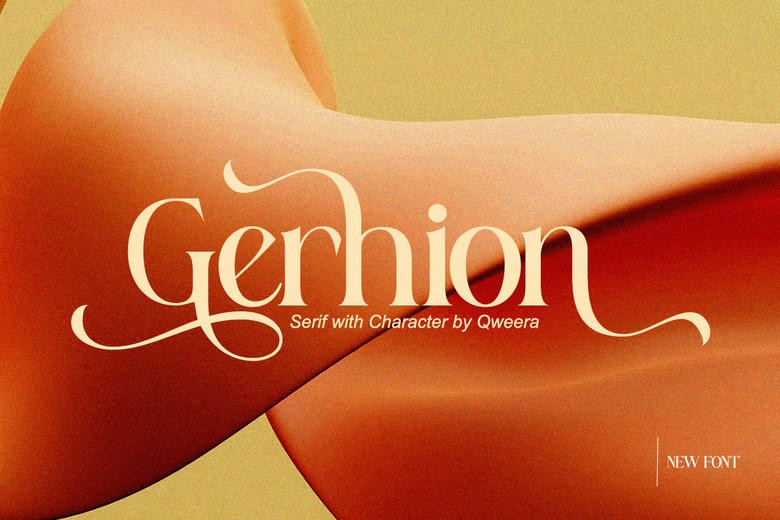
Gerhion Font
Gerhion is a classy serif font that is full of charismatic curves and flowing swashes as well as rather odd alternate characters. Gerhion is idealistically created with high-fashion branding and posh editorial layouts in mind and introduces elegant vibrancy into each word.
This cool yet chic elegance and flair are what make it suitable to use by designers who require luxury, expression, and classic style in their images. Maximize your brand, wedding suite, portfolio showcase or packaging concept using the refined edge of Gerhion.
Gerhion Serif Font